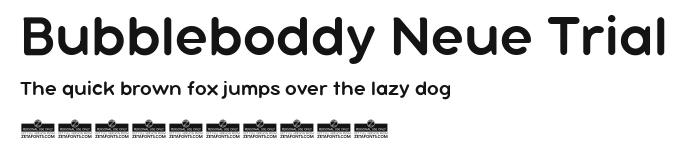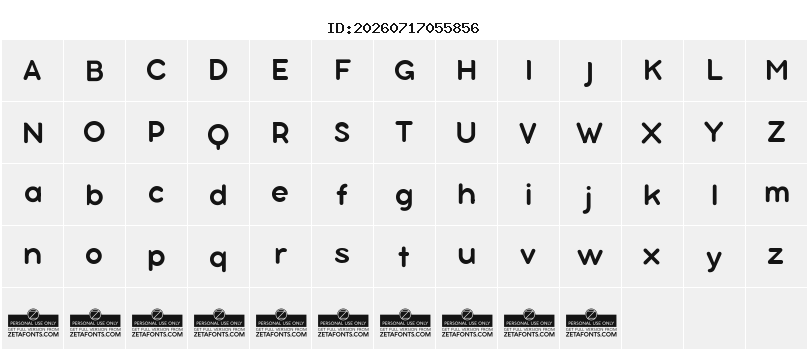
Bubbleboddy Neue Trial Preview
• Font Name: Bubbleboddy Neue Trial
• Designer: Francesco Canovaro
About Bubbleboddy Neue Trial.ttf
Bubbleboddy Neue Trial.ttf is a modern, elegant sans-serif font designed for ultimate readability and visual harmony. Perfect for branding, headlines, web design, and print materials.